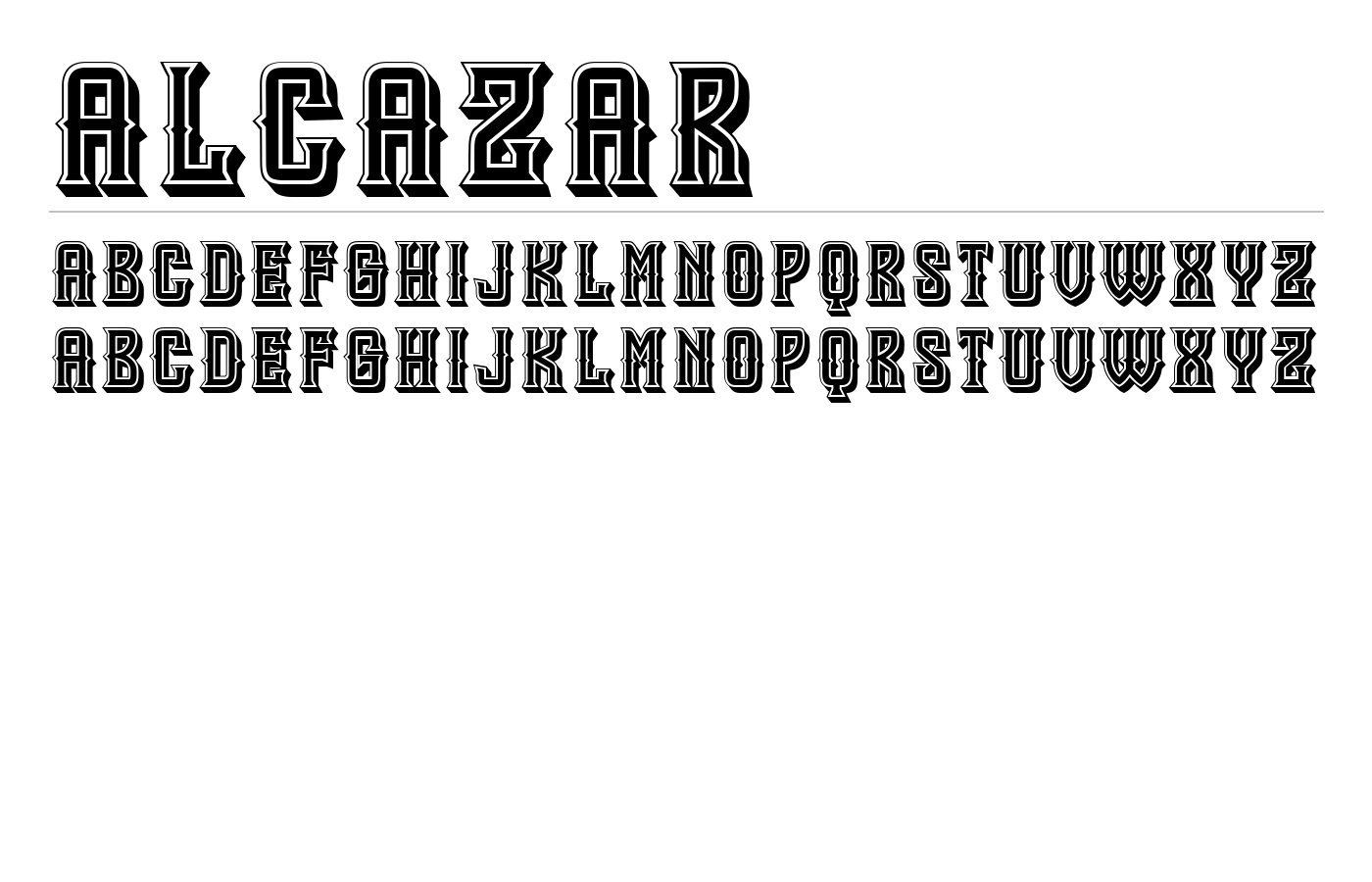
Alcazar is a bold, decorative serif font with a strong, vintage Western-inspired style. Its high contrast strokes and intricate, blocky serifs give it a dramatic, eye-catching presence, making it perfect for headlines, logos, and posters that need a rugged, classic feel. This font works well in designs that want to evoke a sense of tradition and bold character with a touch of elegance.
Alcazar Font
About Alcazar Font
| Font family | Alcazar Font |